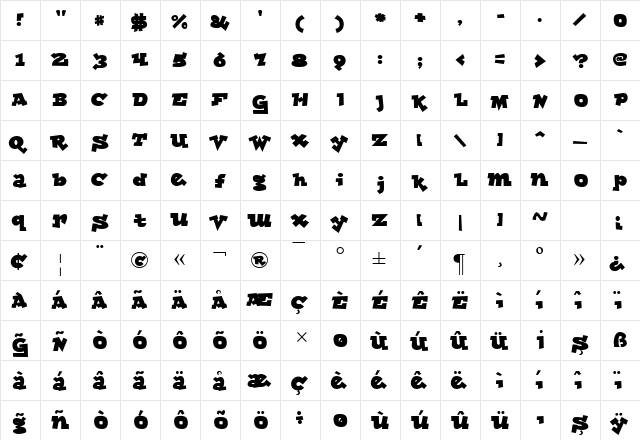
TR Lockergnome Regular
Design Context for TR Lockergnome Typeface
TR Lockergnome is a composed and adaptable typeface that performs quietly and consistently across a wide range of design contexts.